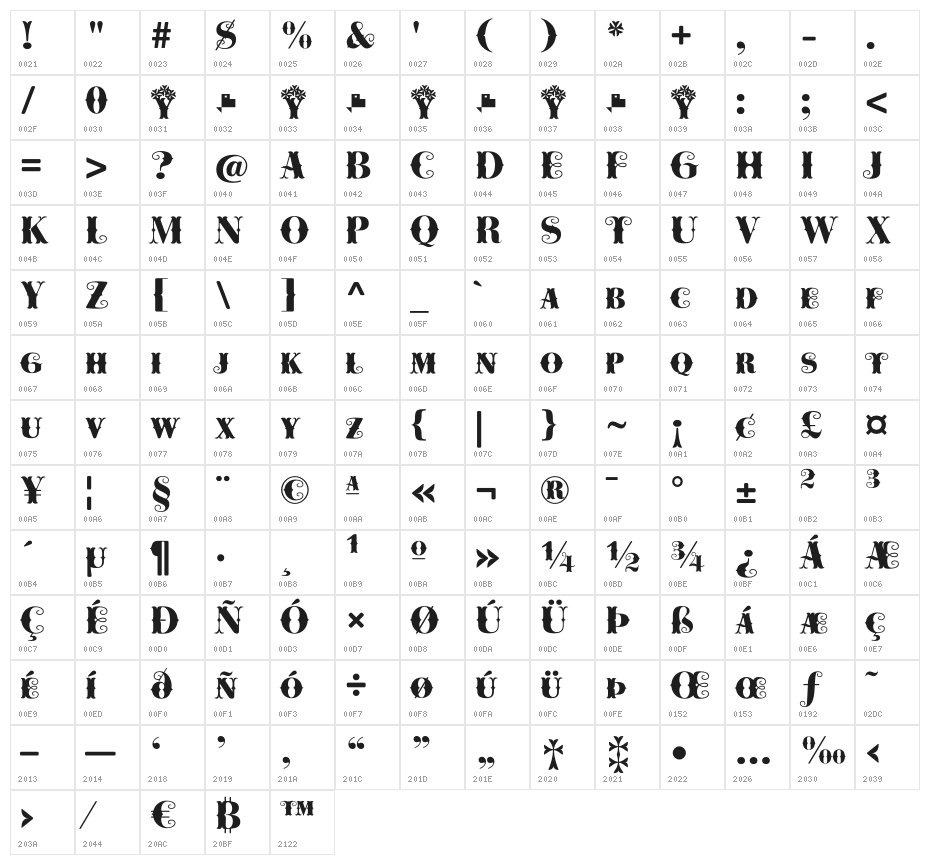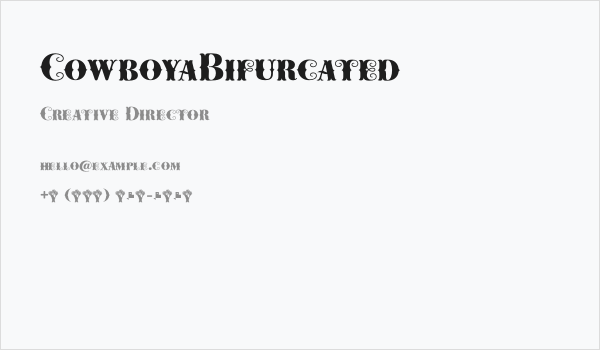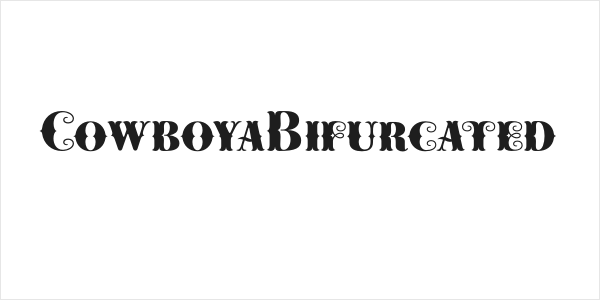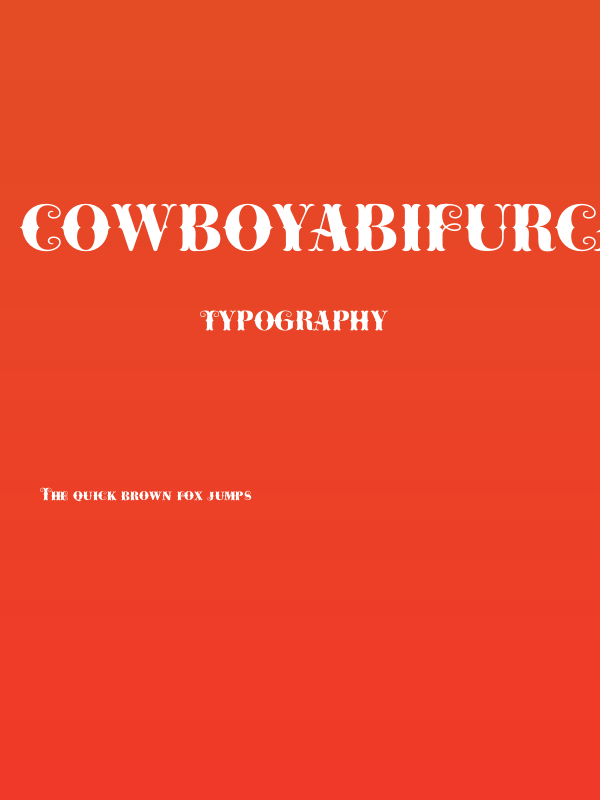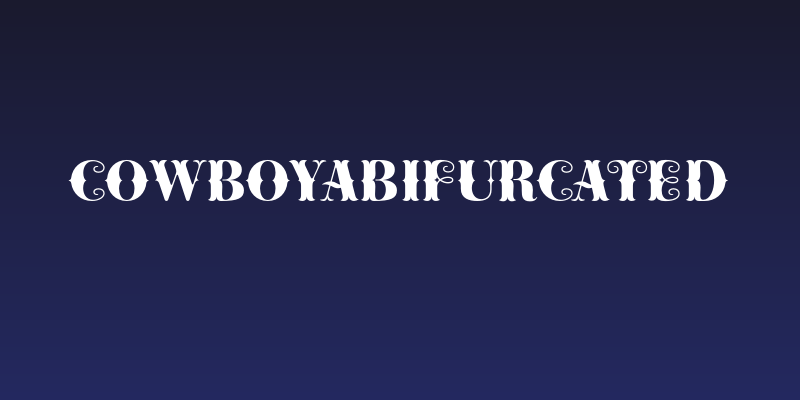
CowboyaBifurcated Font
CowboyaBifurcated Description
This font features a bold and decorative style with bifurcated serifs, giving it a distinct Western or vintage feel. The uppercase letters are characterized by their ornate and intricate designs, with swirling elements and split serifs that add a touch of elegance and complexity. The lowercase letters maintain the same decorative flair, ensuring consistency across the typeface. The numerals and special characters are equally stylized, making them suitable for thematic designs. This font's unique style is perfect for projects that require a bold statement or a touch of nostalgia.
| Proposed Projects | Ideal for Western-themed posters, vintage branding, event invitations, and decorative signage. |